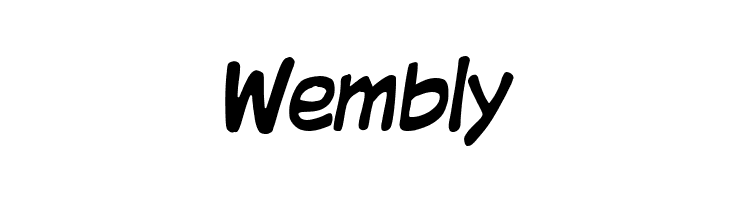
Solveig Bold Italic Font
- Font: Solveig Bold Italic
( Fonts by Press Gang Studios - Andeh Pinkard - www.pressgang-studios.com )
A bold, italic font with a dynamic, handwritten style.